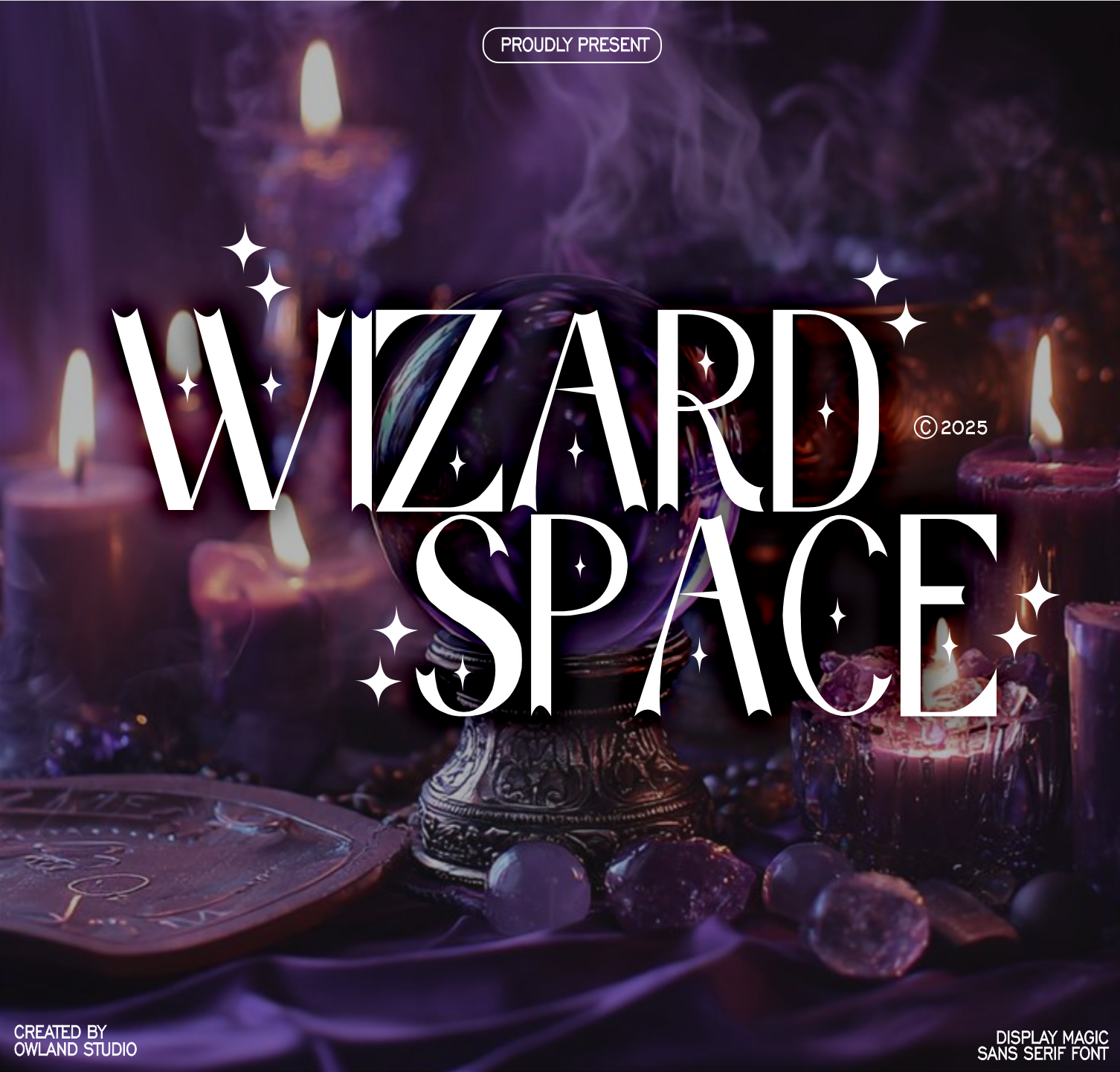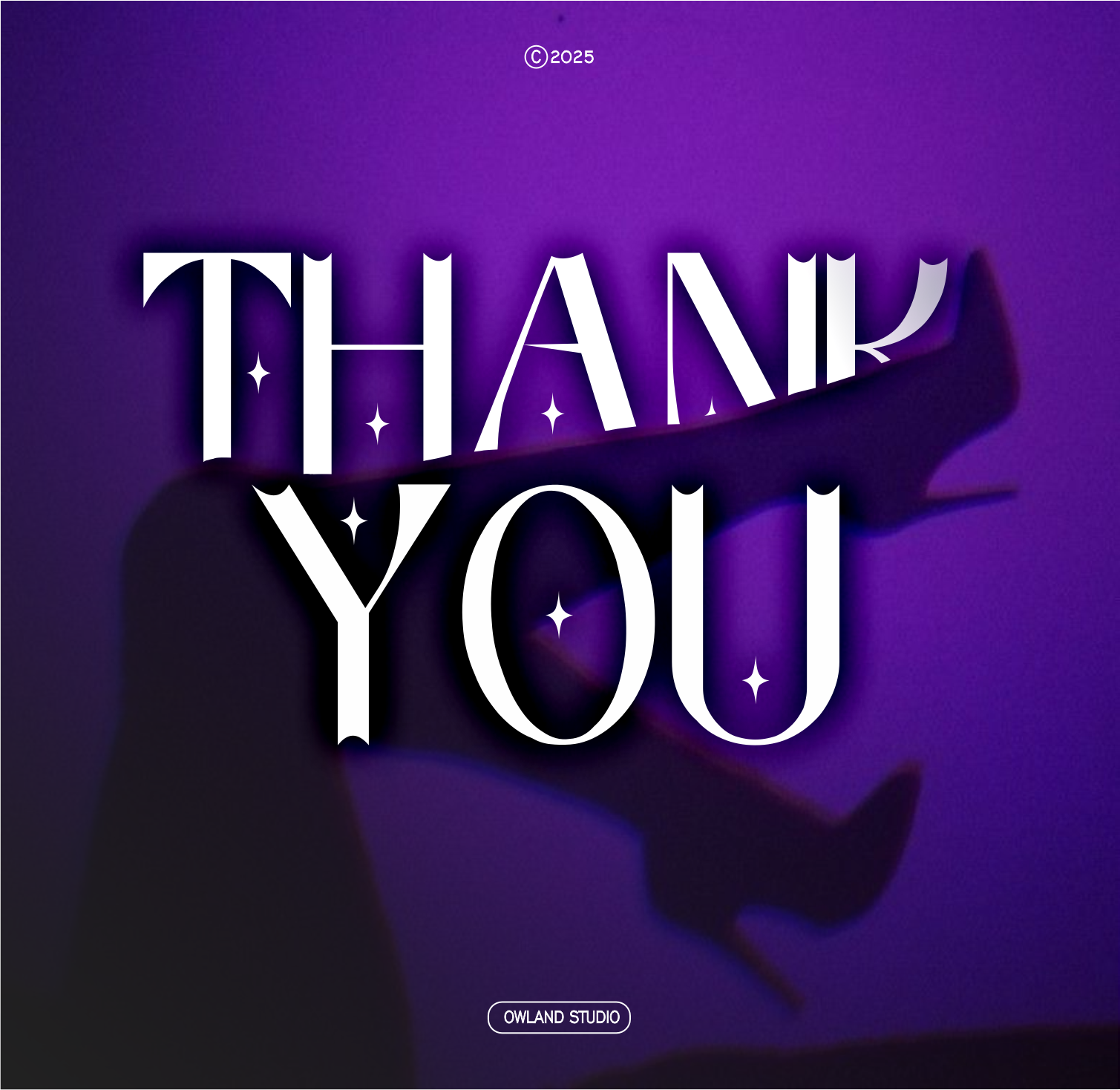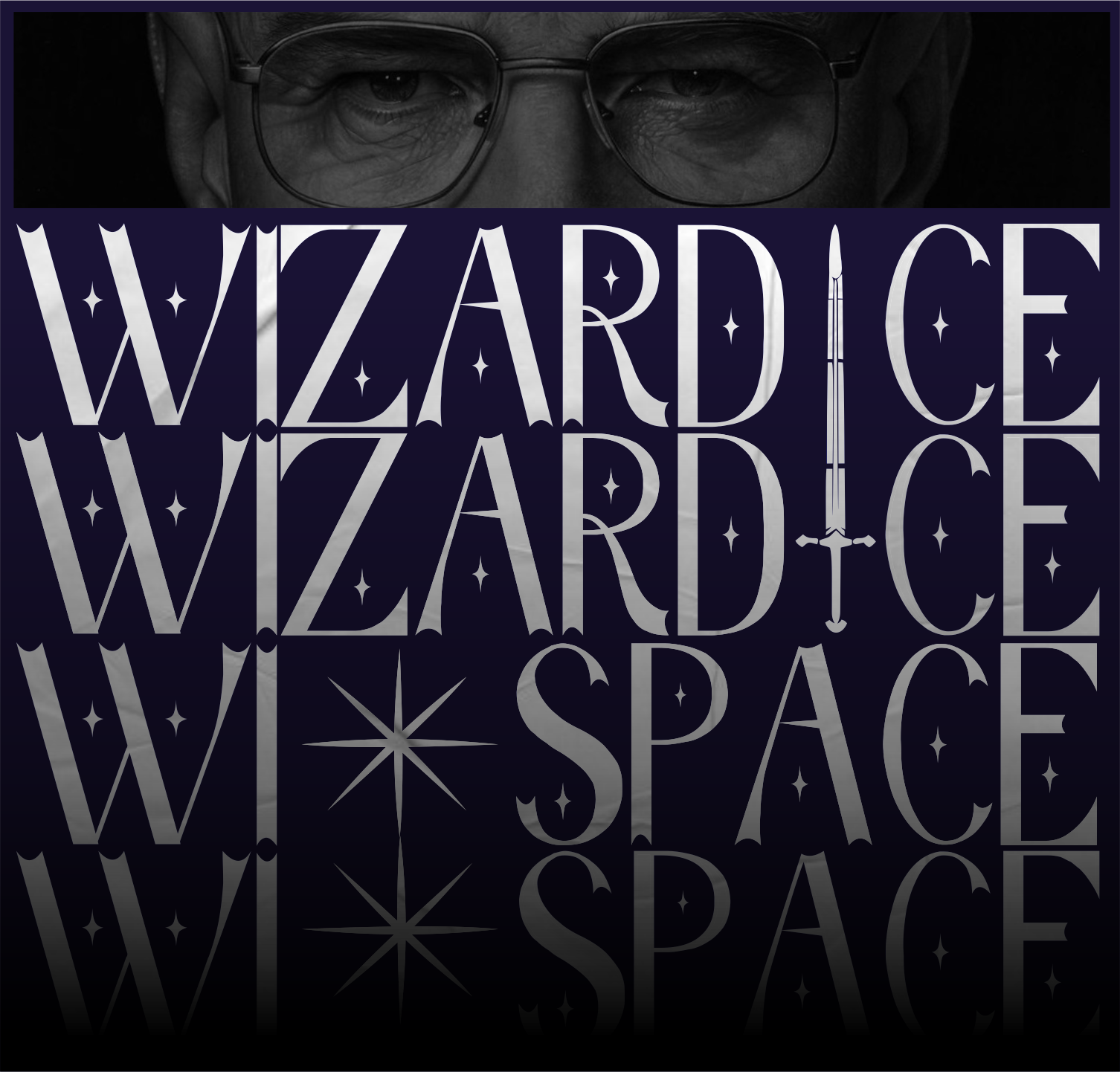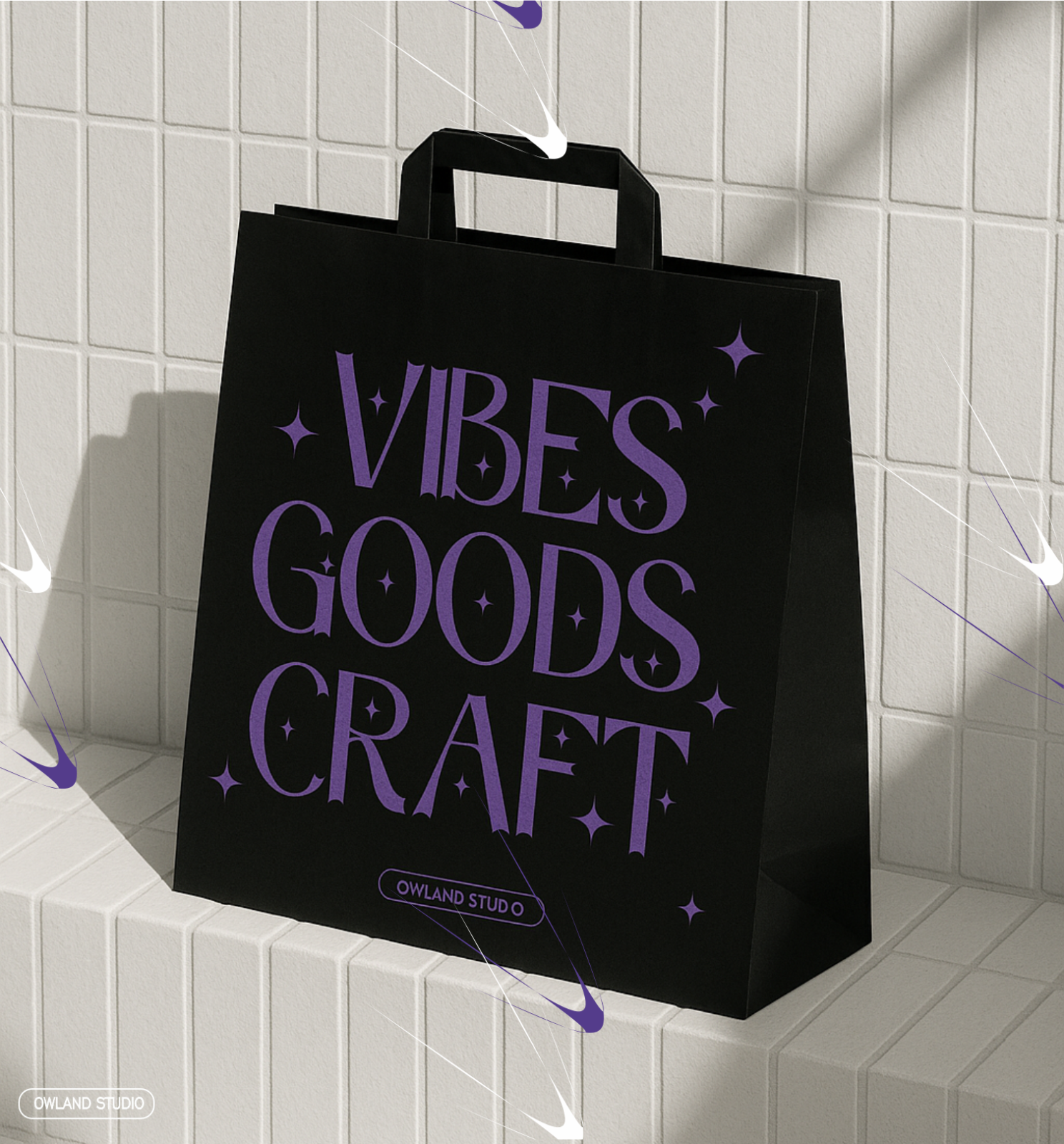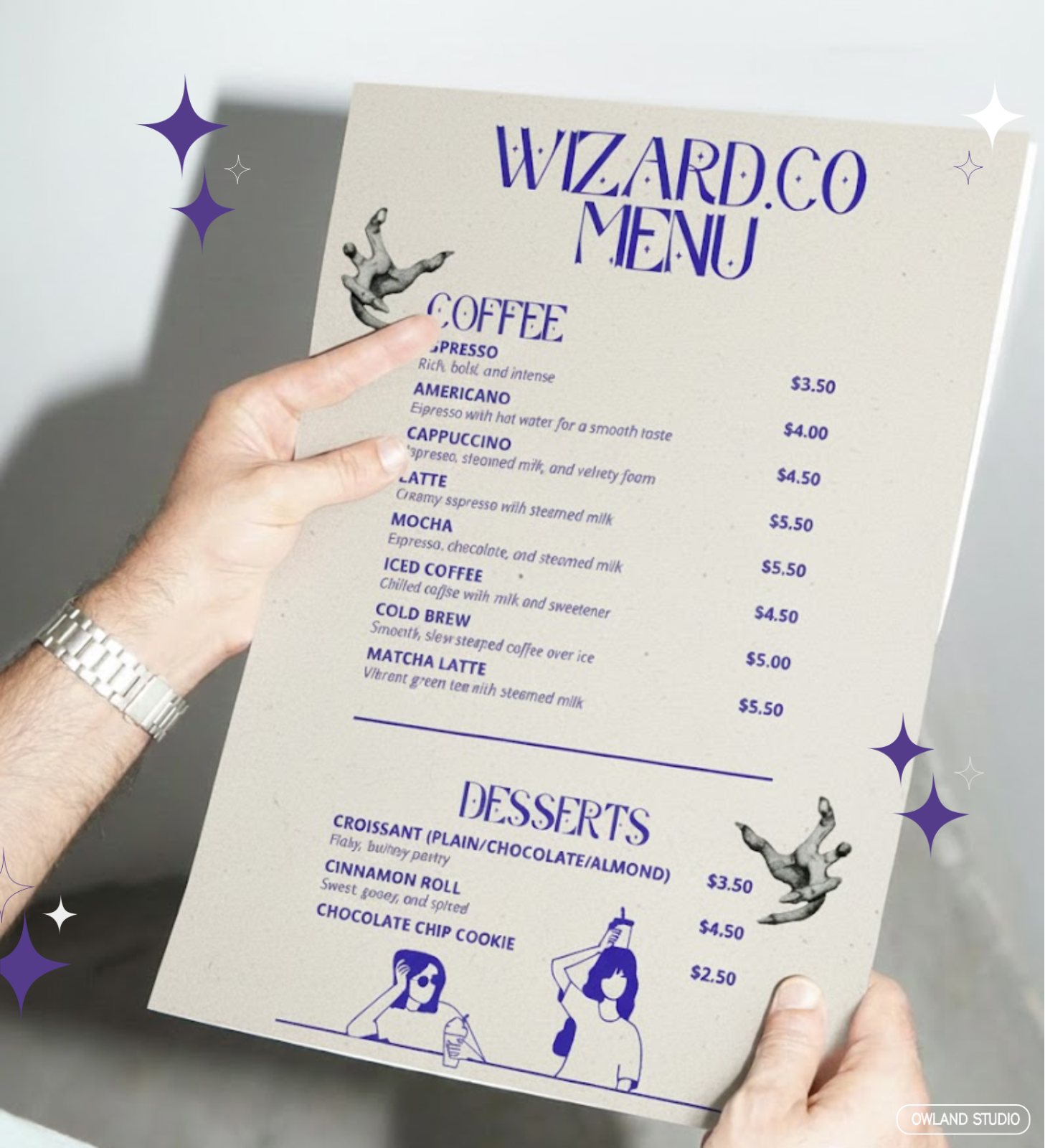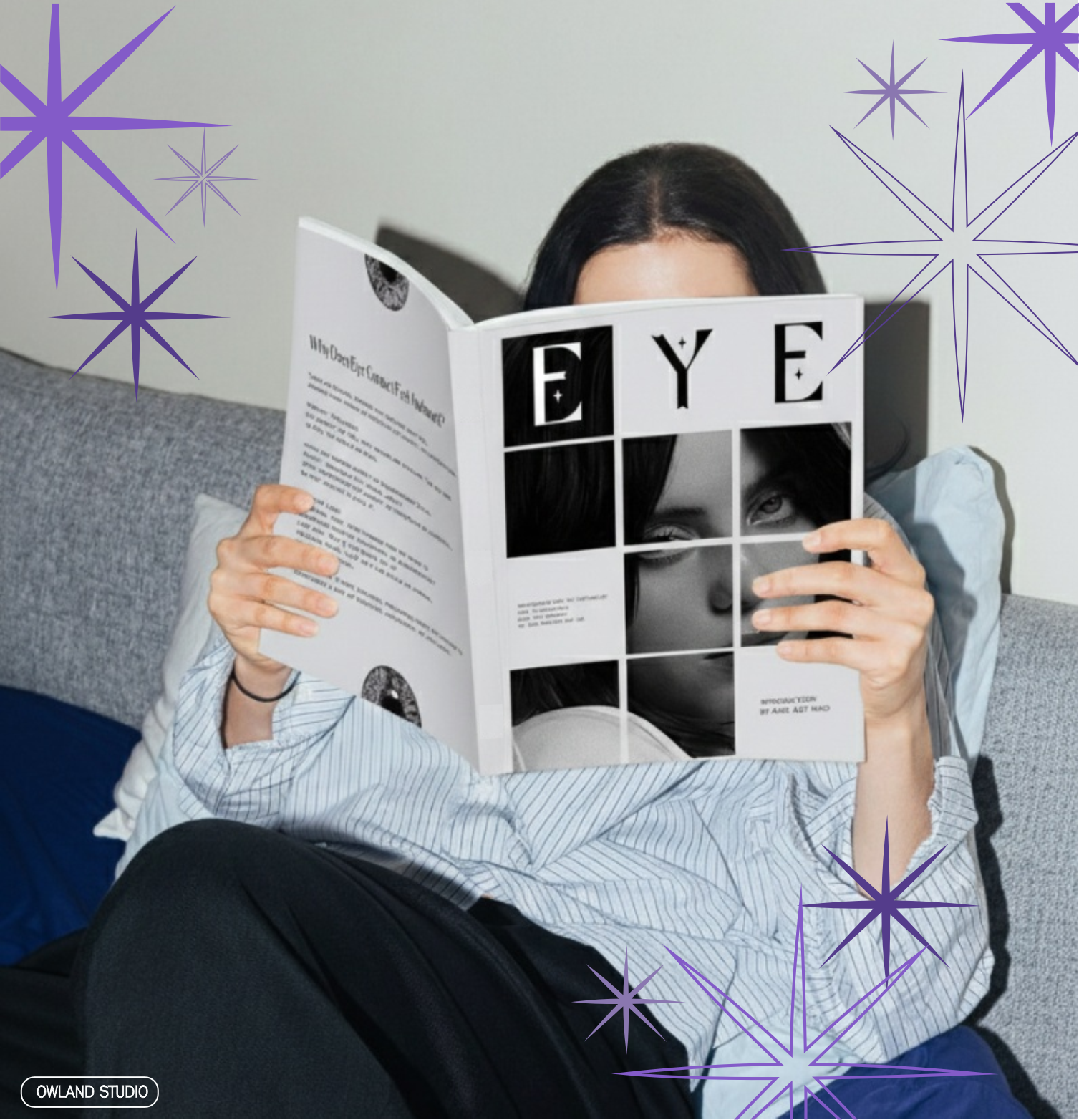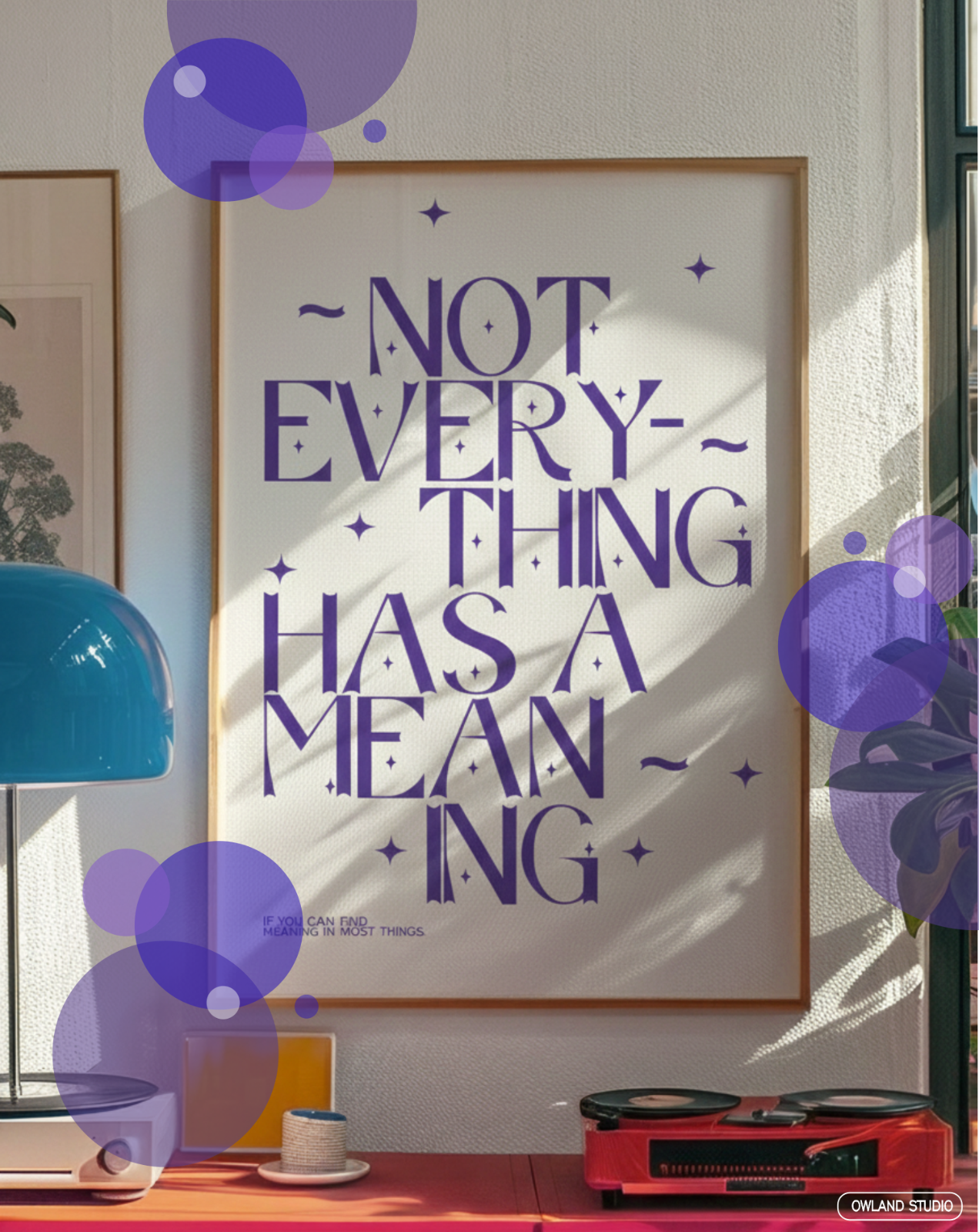
Hi everyone, I'm introducing a new project called WIZARD SPACE. This is just something I've been experimenting with for a more fantastical look of magic and wizardry.
The capital letters create a majestic shape, while the lowercase letters complement it with subtle legibility and ornamental rhythm. I absolutely love this font; its energy and natural, magical feel make it perfect for tote bags, cafe menus, book covers, wall posters, and billboards!